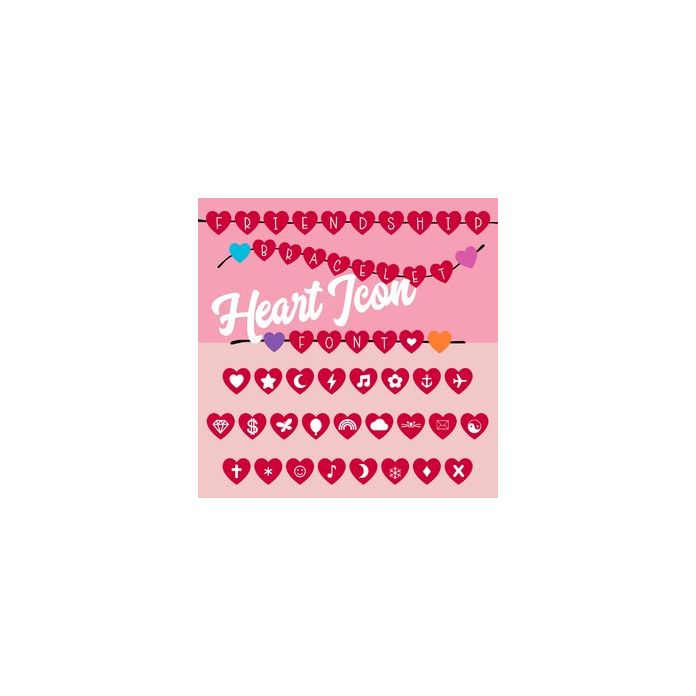
Friendship Bracelet Era Heart Icons Font
Heart Shaped red beads for Icons also includes multi color plain heart beads to mix up patterns and straight and wavy threads to create your own friendship bracelet words, titles and quotes.